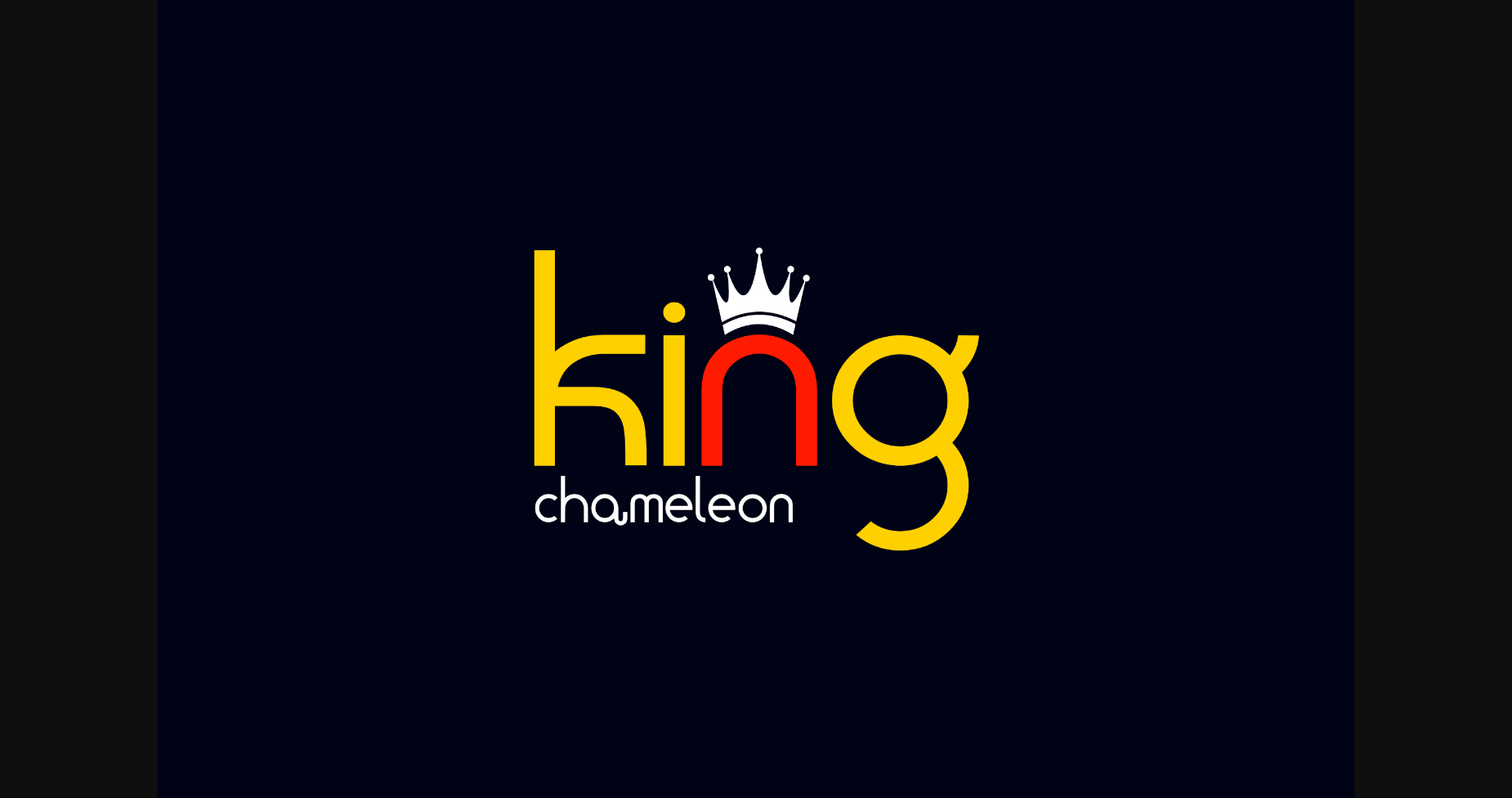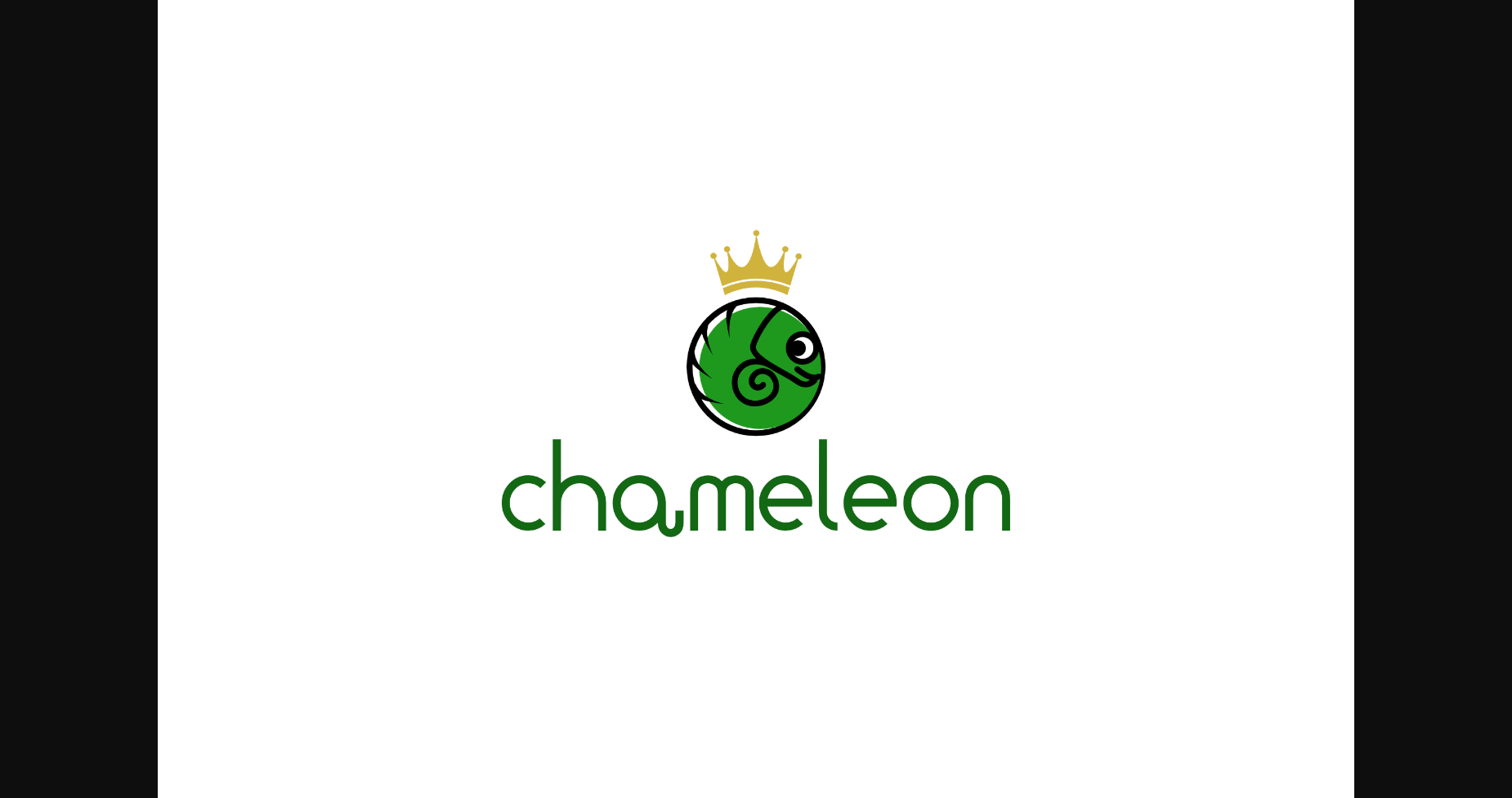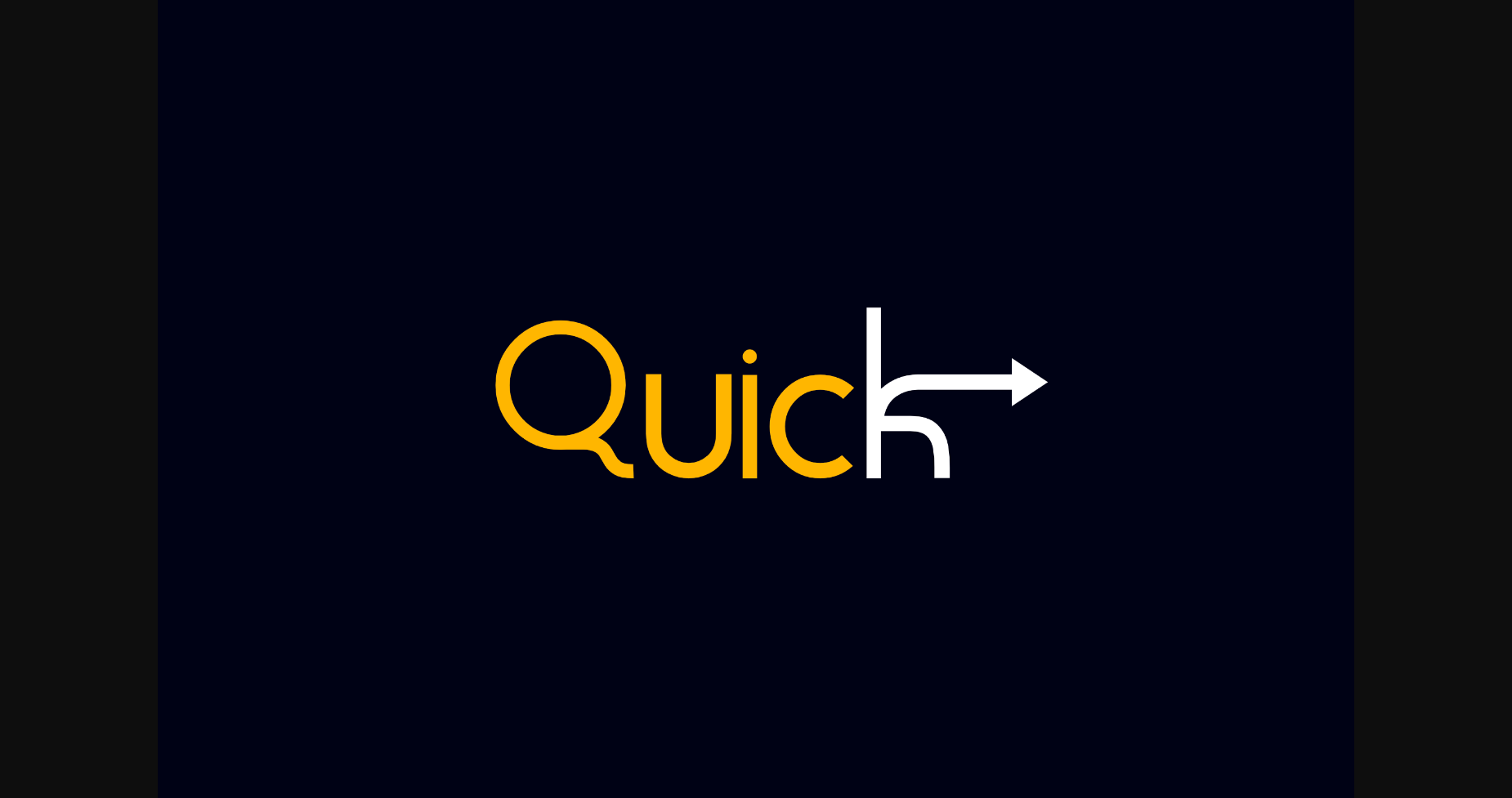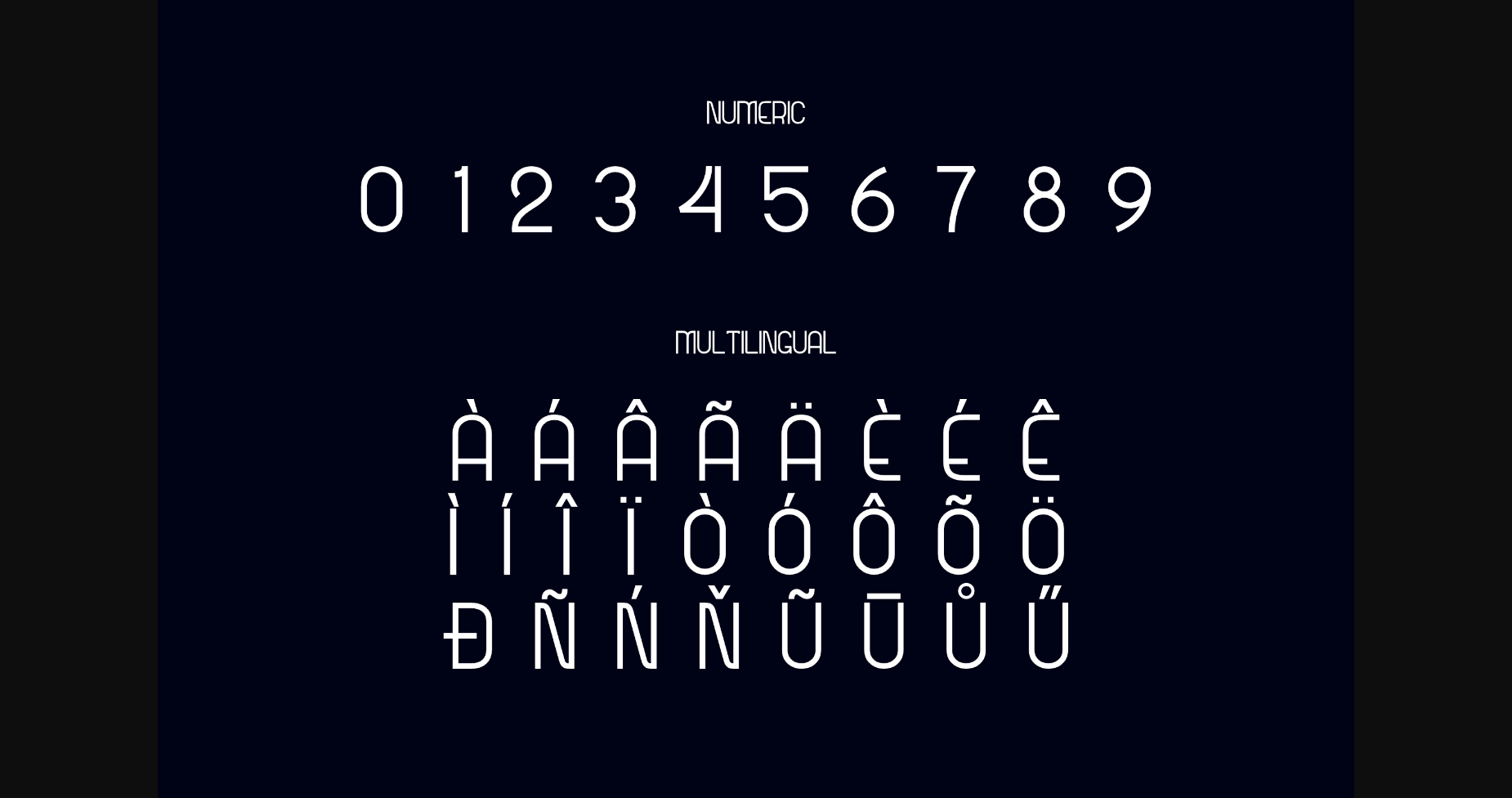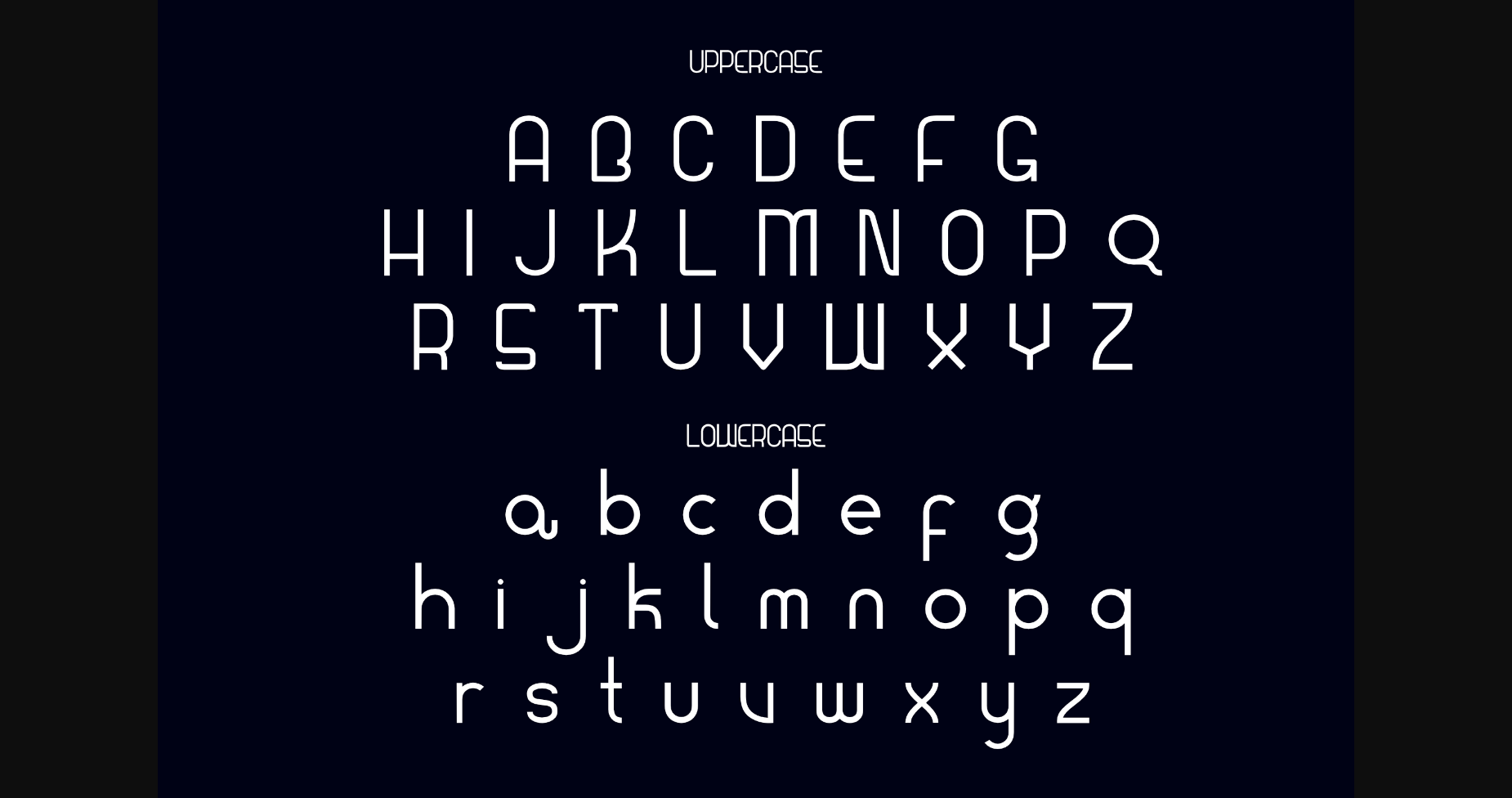
King Chameleon is a cool, minimalist and modern sans serif font. Masterfully designed to become a true favorite, this font has the potential to bring each of your creative ideas to the highest level!